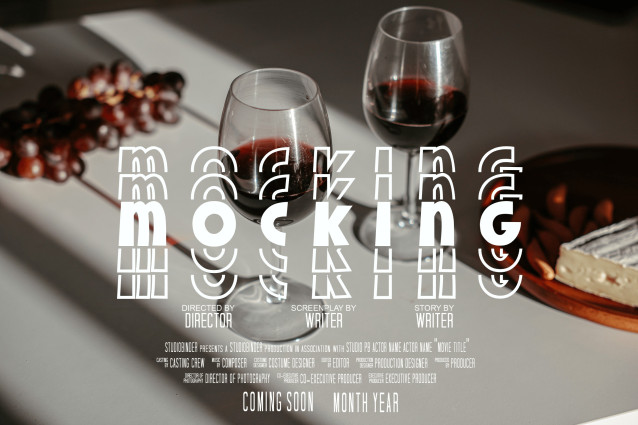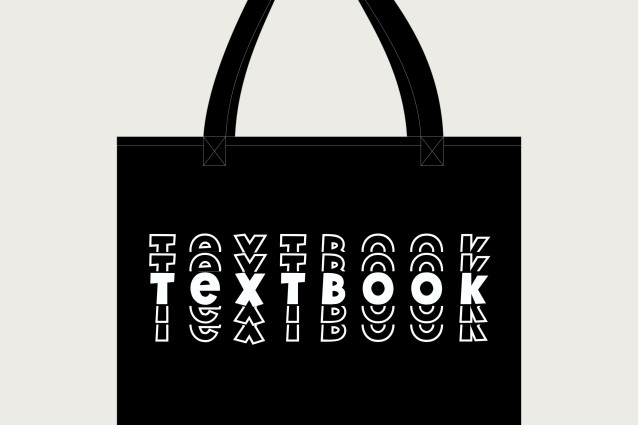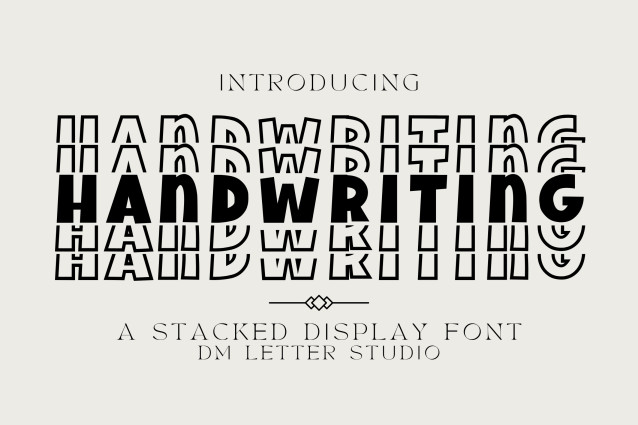
Handwriting Stacked Font
Handwriting Stacked Font is a quirky and approachable stacked handwriting font designed to add fun and friendliness to any design. With its unique vertical composition and handwritten charm, this font is perfect for classroom posters, social media graphics, children’s projects, creative journaling, and personalized stationery. Its stacked structure gives your text a modern, attention-grabbing edge while preserving the warmth of hand-drawn letters.